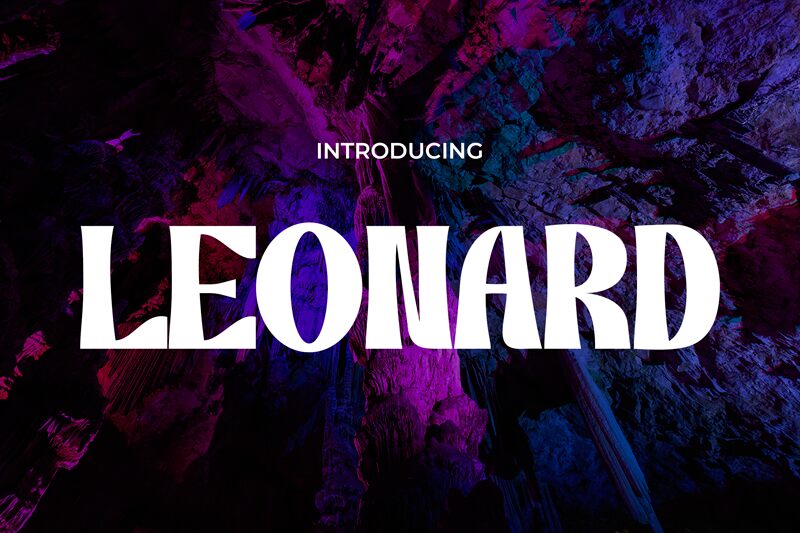
Leonard font by Pinisiart showcases a retro style, offering an expressive and dynamic flair. This free font combines a modern aesthetic with a nostalgic touch, creating a bold, impactful presence. Its artistic and attention-grabbing design promises to bring a layer of confidence and expression to any project it's used in.
Leonard is ideal for posters, headlines, branding, packaging, and logo design. It’s also perfect for labels, invitations, website headers, social media graphics, book covers, and apparel design. Anywhere that demands a distinctive and memorable look can benefit from Leonard’s unique style.